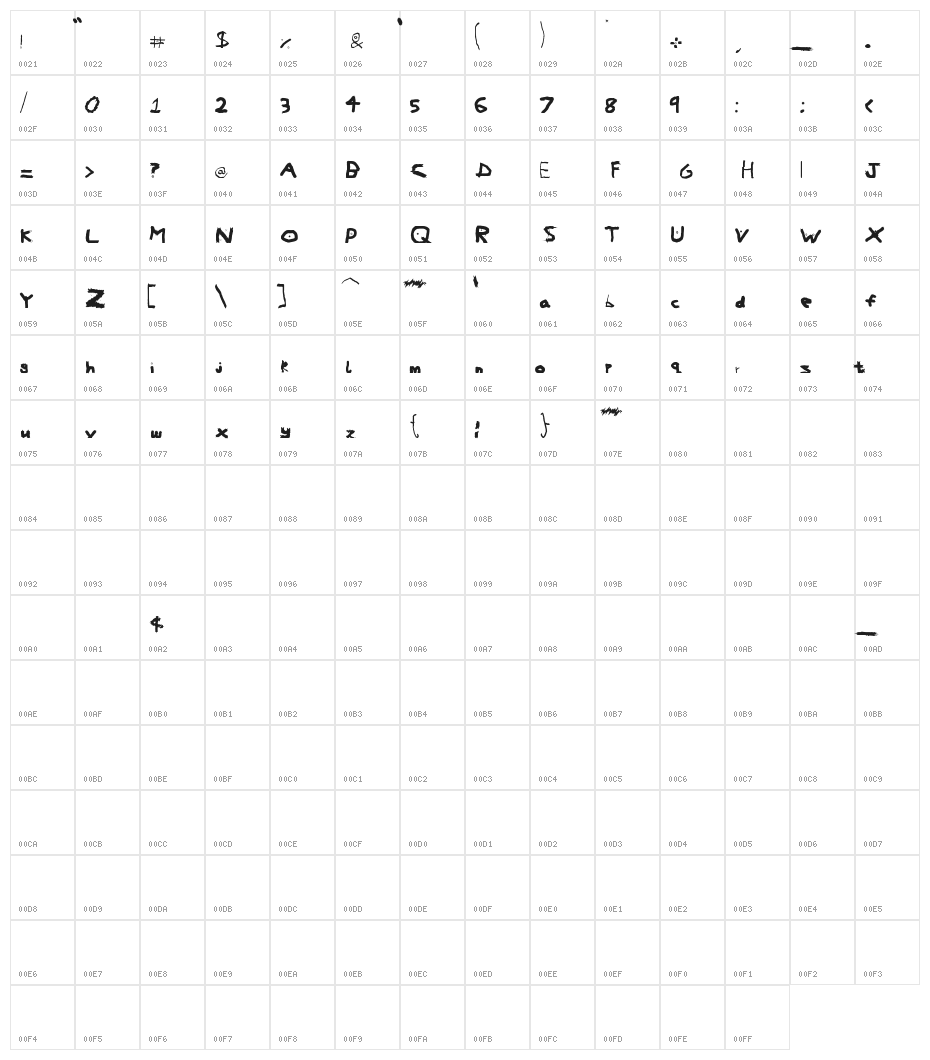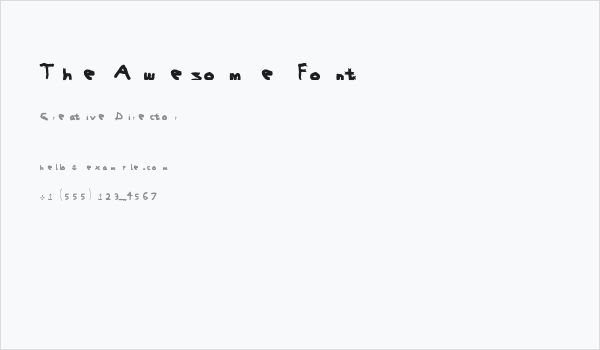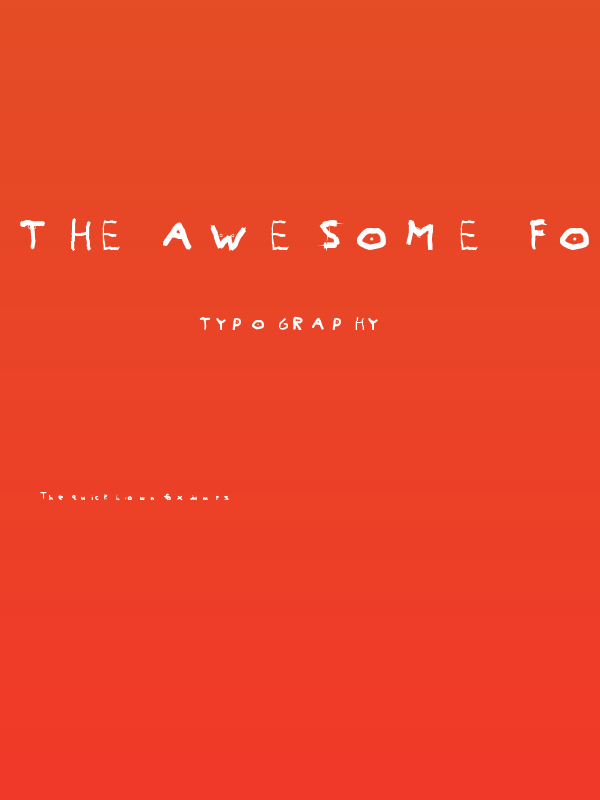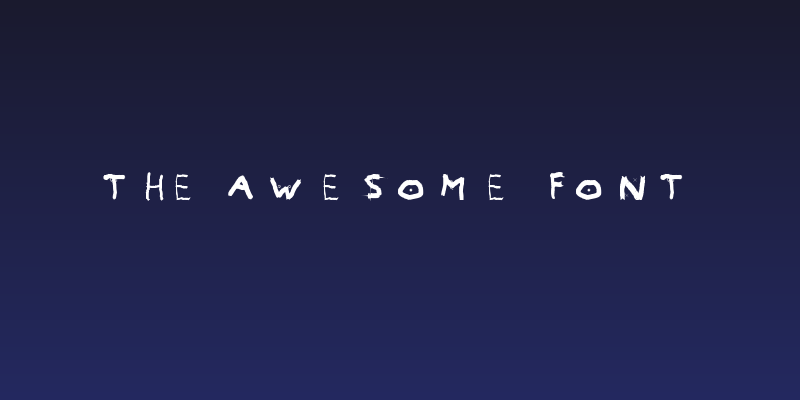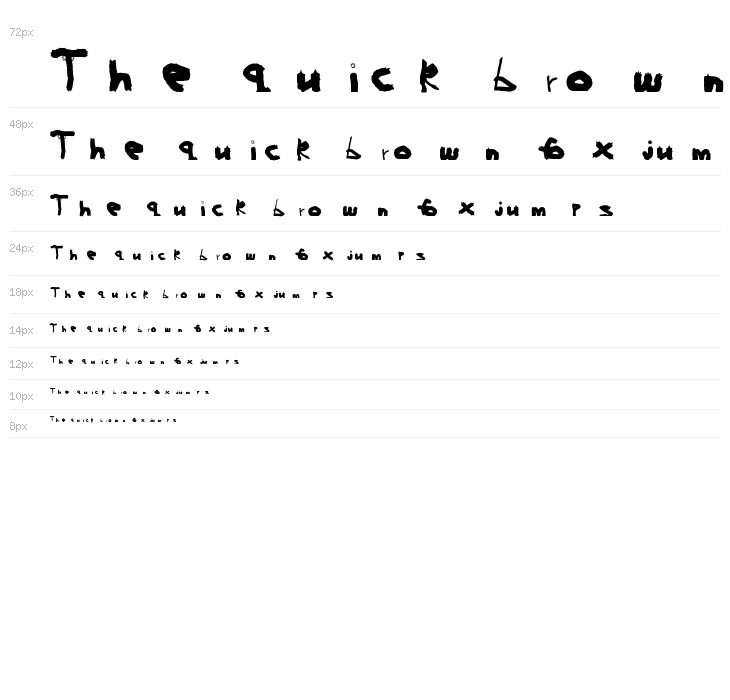
The Awesome Font Font
The Awesome Font Description
This font exhibits a bold, expressive style with a hand-drawn appearance. The characters are irregular and dynamic, giving a sense of movement and energy. The strokes are thick and uneven, contributing to a raw, artistic feel. The uppercase and lowercase letters maintain a consistent style, with some characters featuring unique, exaggerated forms. The numbers and special characters follow the same bold and creative design, making the font suitable for projects that require a distinctive and eye-catching look.
| Proposed Projects | Ideal for artistic projects, posters, album covers, and any design needing a bold, creative touch. |